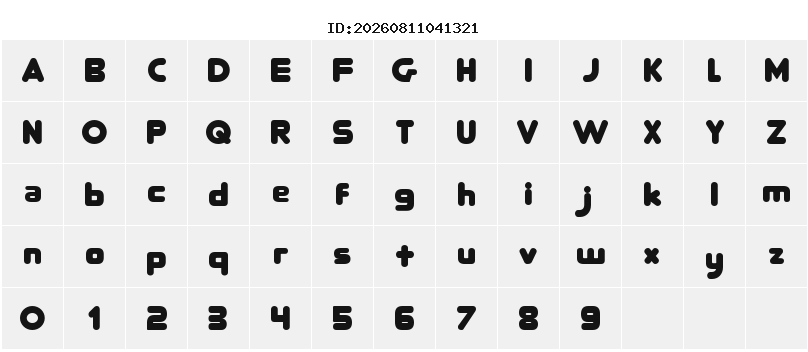
RoundFit Lowercase Extended Preview
• Font Name: RoundFit Lowercase Extended
• Full Font Name: RoundFit Lowercase Extended
• Version: Version 1.00 November 15, 2014, initial release
About RoundFit Lowercase Extended.ttf
RoundFit Lowercase Extended.ttf is a modern, elegant sans-serif font designed for ultimate readability and visual harmony. Perfect for branding, headlines, web design, and print materials.